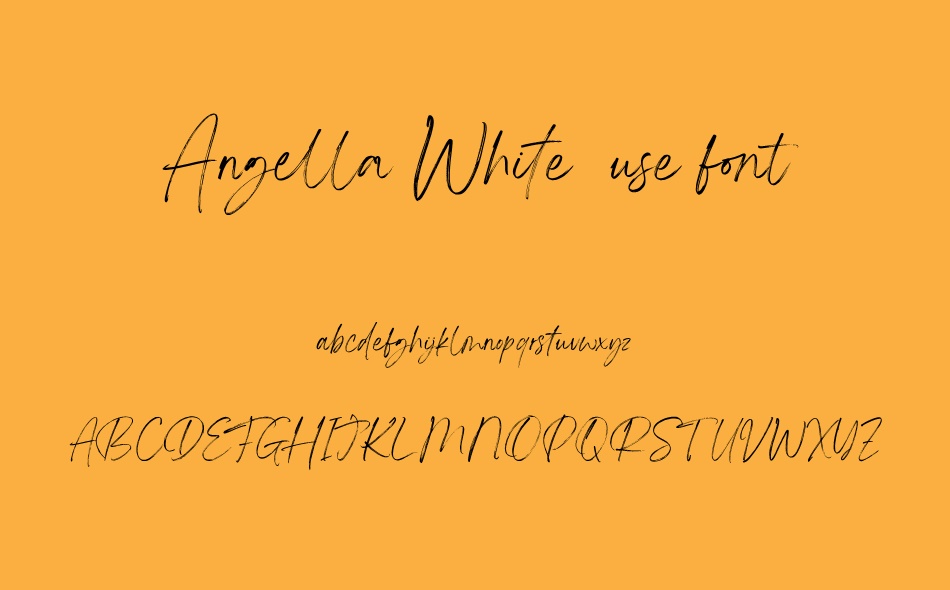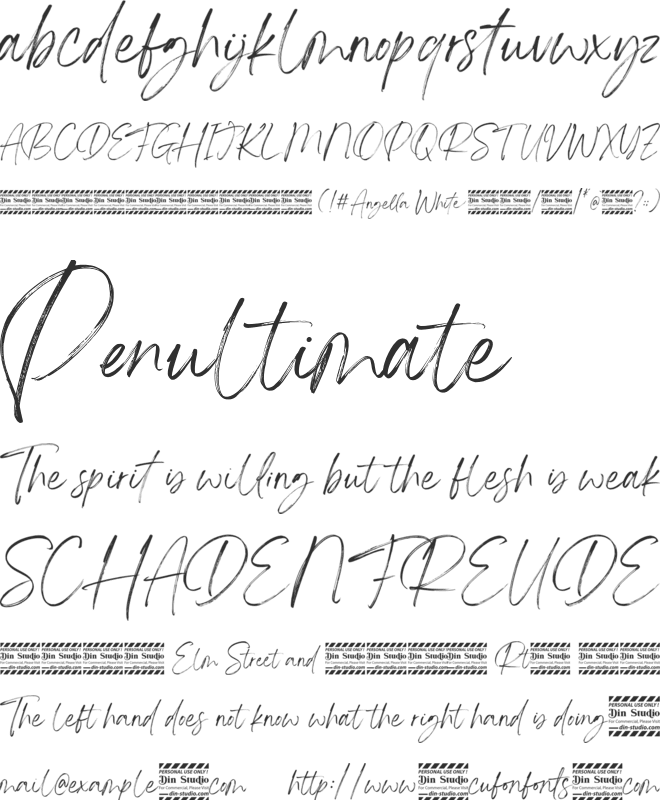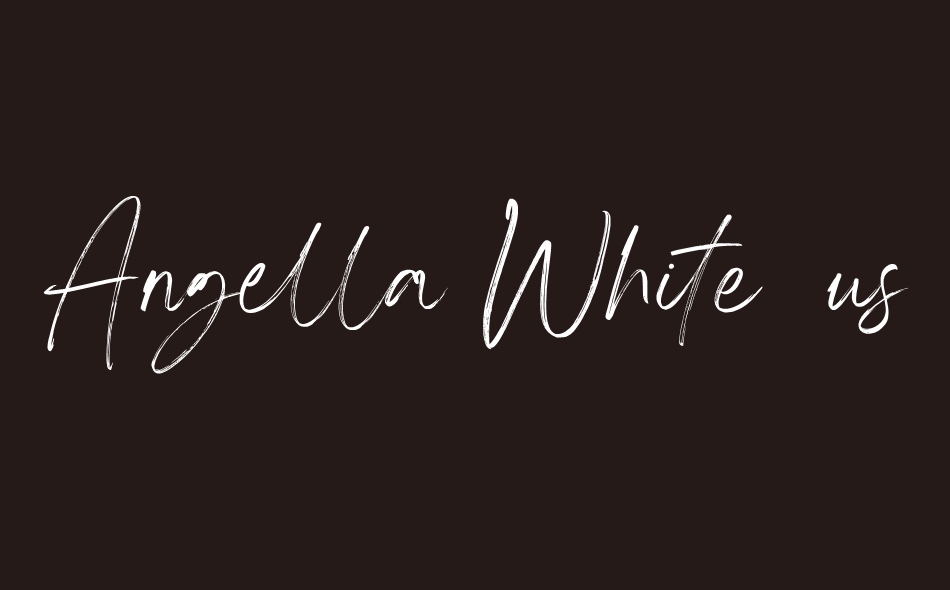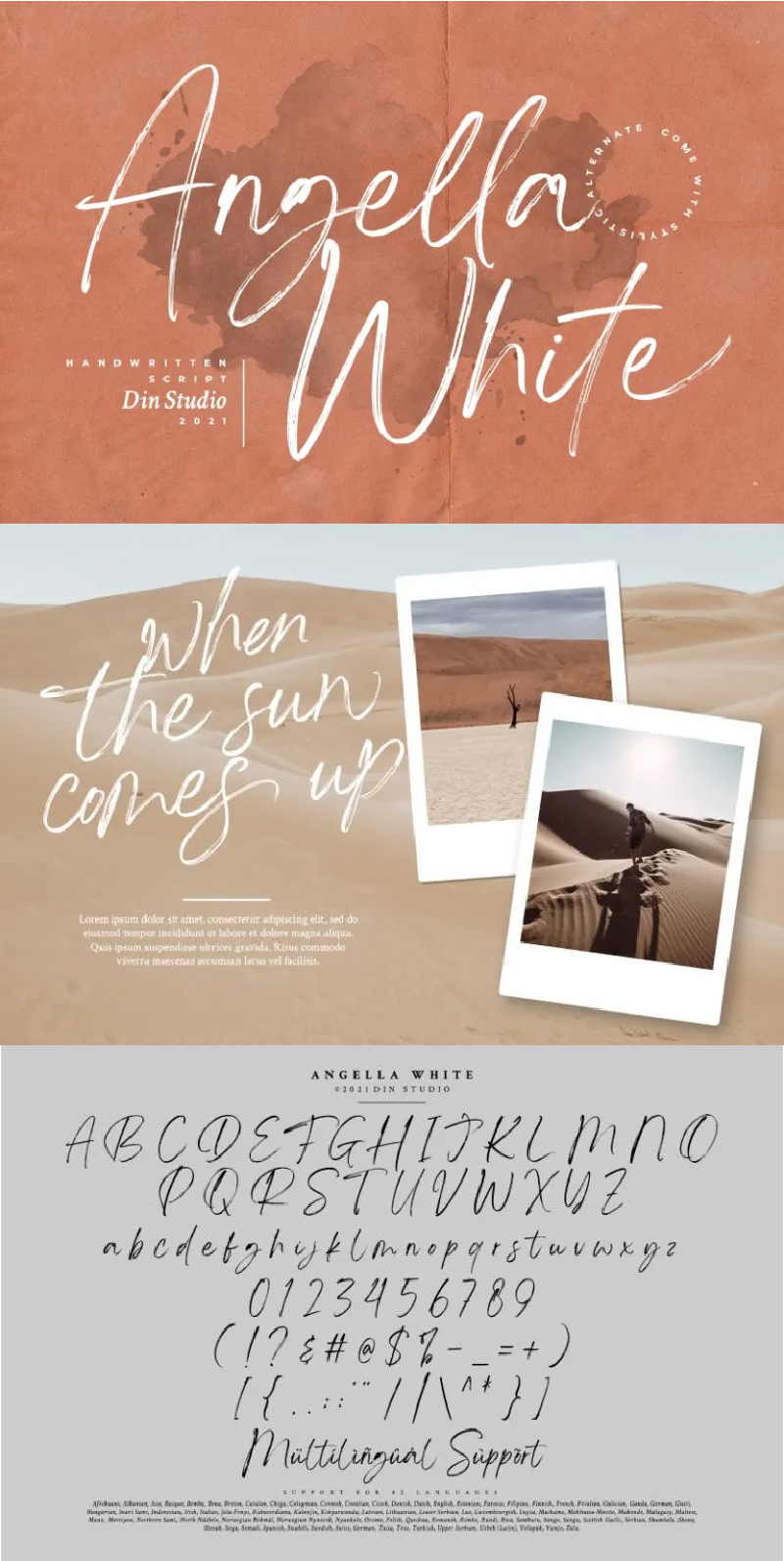
Angella White Font Free Download - Web angella white brush font free for personal use. Web use it to create standout headings, promote your online sales, instagram quotes, and even printed. Please download and enjoy, or can search more similar fonts on. Angella white is a free font for personal use created by din. Hello everyone, today i am going to discuss an attractive handcrafted font. Web angella white font download is available free from fontget. Web use it to create standout headings, promote your online sales, instagram quotes, and even printed materials like business. Web 46,743 downloads (80 yesterday) free for personal use.
Web 46,743 downloads (80 yesterday) free for personal use. Web use it to create standout headings, promote your online sales, instagram quotes, and even printed. Web angella white brush font free for personal use. Please download and enjoy, or can search more similar fonts on. Web angella white font download is available free from fontget. Hello everyone, today i am going to discuss an attractive handcrafted font. Angella white is a free font for personal use created by din. Web use it to create standout headings, promote your online sales, instagram quotes, and even printed materials like business.
Web angella white font download is available free from fontget. Web use it to create standout headings, promote your online sales, instagram quotes, and even printed materials like business. Web 46,743 downloads (80 yesterday) free for personal use. Angella white is a free font for personal use created by din. Hello everyone, today i am going to discuss an attractive handcrafted font. Please download and enjoy, or can search more similar fonts on. Web angella white brush font free for personal use. Web use it to create standout headings, promote your online sales, instagram quotes, and even printed.
Angella white is a free font for personal use created by din. Web angella white font download is available free from fontget. Hello everyone, today i am going to discuss an attractive handcrafted font. Web angella white brush font free for personal use. Web 46,743 downloads (80 yesterday) free for personal use.
Angella white is a free font for personal use created by din. Web angella white font download is available free from fontget. Web 46,743 downloads (80 yesterday) free for personal use. Hello everyone, today i am going to discuss an attractive handcrafted font. Web angella white brush font free for personal use.
Web angella white font download is available free from fontget. Angella white is a free font for personal use created by din. Web use it to create standout headings, promote your online sales, instagram quotes, and even printed materials like business. Web use it to create standout headings, promote your online sales, instagram quotes, and even printed. Web angella white.
Hello everyone, today i am going to discuss an attractive handcrafted font. Web 46,743 downloads (80 yesterday) free for personal use. Web use it to create standout headings, promote your online sales, instagram quotes, and even printed materials like business. Web angella white brush font free for personal use. Web use it to create standout headings, promote your online sales,.
Web use it to create standout headings, promote your online sales, instagram quotes, and even printed materials like business. Angella white is a free font for personal use created by din. Web 46,743 downloads (80 yesterday) free for personal use. Web angella white font download is available free from fontget. Web use it to create standout headings, promote your online.
Angella White free font
Web angella white brush font free for personal use. Angella white is a free font for personal use created by din. Web 46,743 downloads (80 yesterday) free for personal use. Please download and enjoy, or can search more similar fonts on. Web use it to create standout headings, promote your online sales, instagram quotes, and even printed.
Angella White free font
Web angella white brush font free for personal use. Web angella white font download is available free from fontget. Please download and enjoy, or can search more similar fonts on. Angella white is a free font for personal use created by din. Web use it to create standout headings, promote your online sales, instagram quotes, and even printed materials like.
Angella White Font
Angella white is a free font for personal use created by din. Please download and enjoy, or can search more similar fonts on. Web angella white font download is available free from fontget. Web use it to create standout headings, promote your online sales, instagram quotes, and even printed materials like business. Web angella white brush font free for personal.
Angella White Font Download Fonts
Hello everyone, today i am going to discuss an attractive handcrafted font. Web use it to create standout headings, promote your online sales, instagram quotes, and even printed materials like business. Angella white is a free font for personal use created by din. Please download and enjoy, or can search more similar fonts on. Web angella white brush font free.
Please download and enjoy, or can search more similar fonts on. Web angella white brush font free for personal use. Web use it to create standout headings, promote your online sales, instagram quotes, and even printed materials like business. Web angella white font download is available free from fontget.
Web Use It To Create Standout Headings, Promote Your Online Sales, Instagram Quotes, And Even Printed.
Hello everyone, today i am going to discuss an attractive handcrafted font. Web 46,743 downloads (80 yesterday) free for personal use.